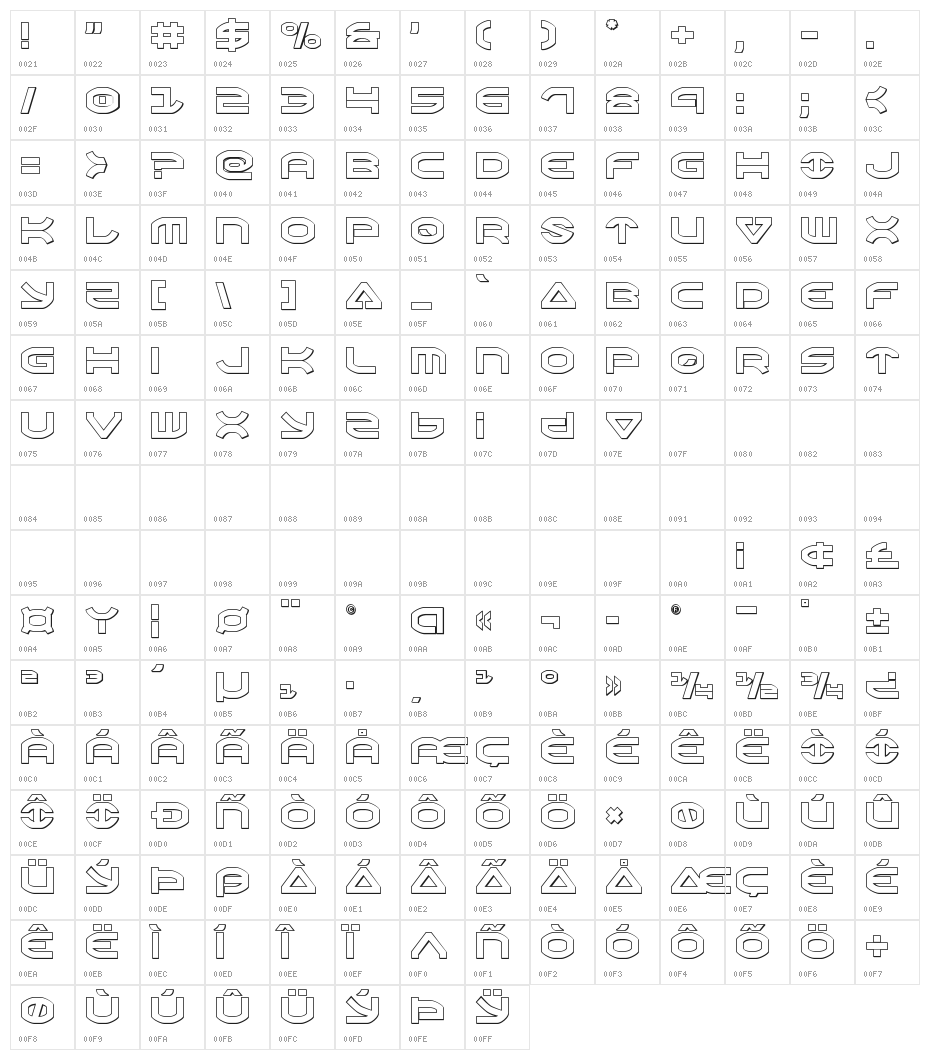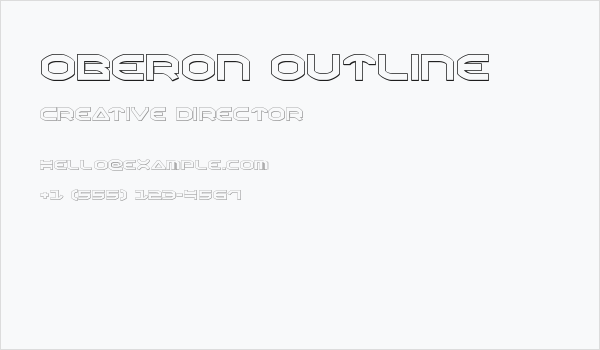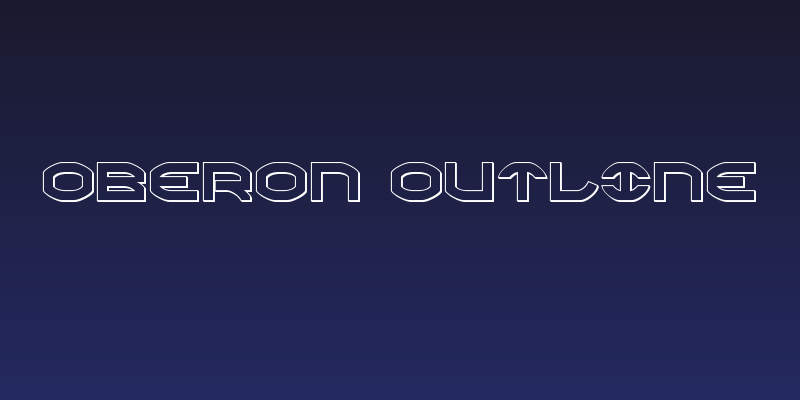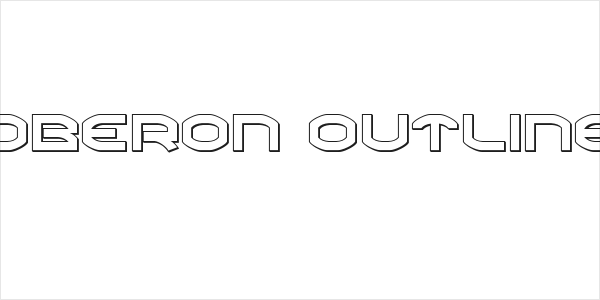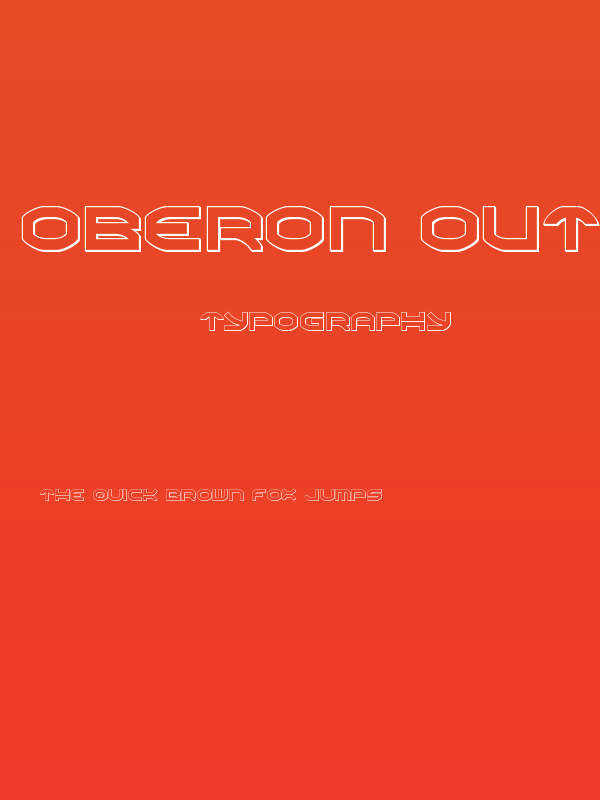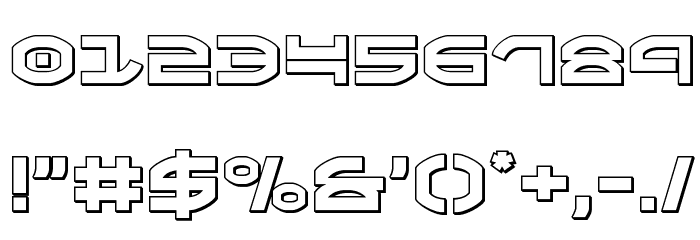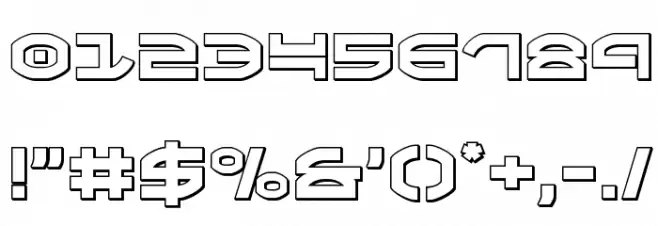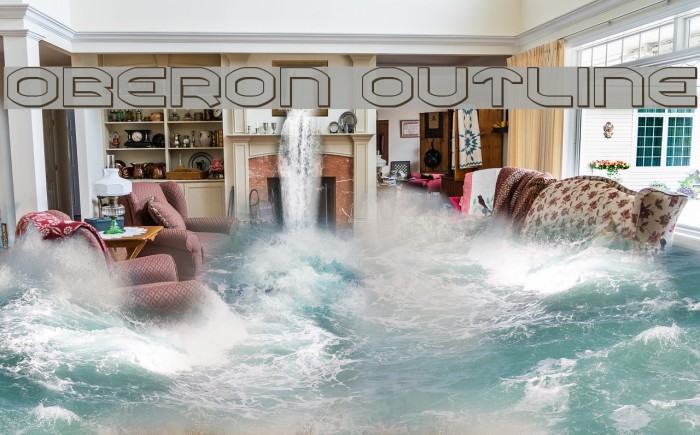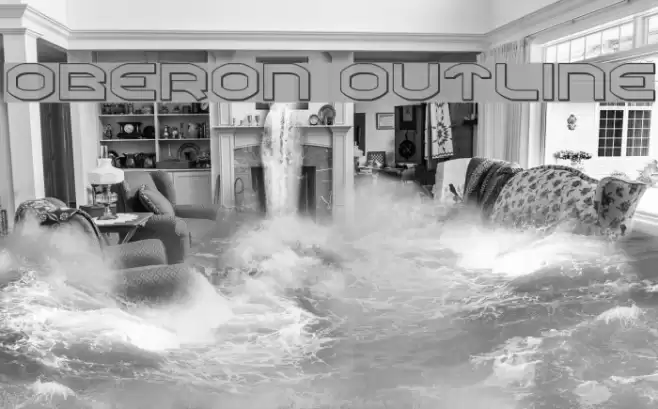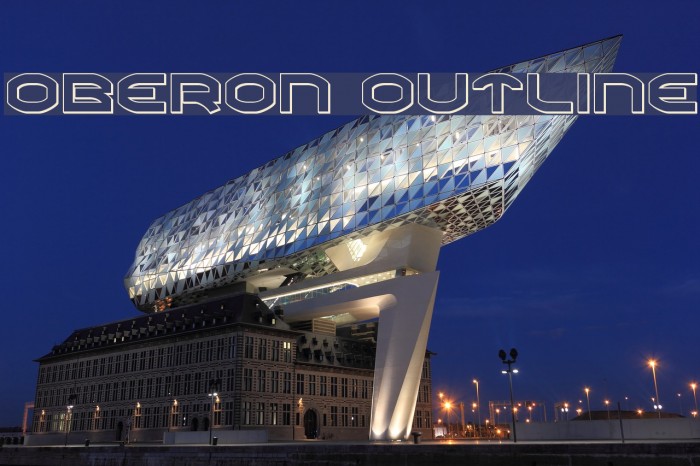
Oberon Outline Font
Oberon Outline Description
This font features a bold, geometric outline style that gives it a futuristic and modern appearance. The characters are constructed with clean, angular lines and sharp edges, creating a sense of precision and clarity. The uppercase and lowercase letters maintain a consistent height, contributing to a uniform and cohesive look. The numbers and special characters follow the same design principles, ensuring a harmonious overall appearance. This font's unique outline design makes it stand out, making it suitable for projects that require a distinctive and eye-catching typeface.
| Proposed Projects | Ideal for sci-fi themed designs, technology branding, posters, and digital media projects. |